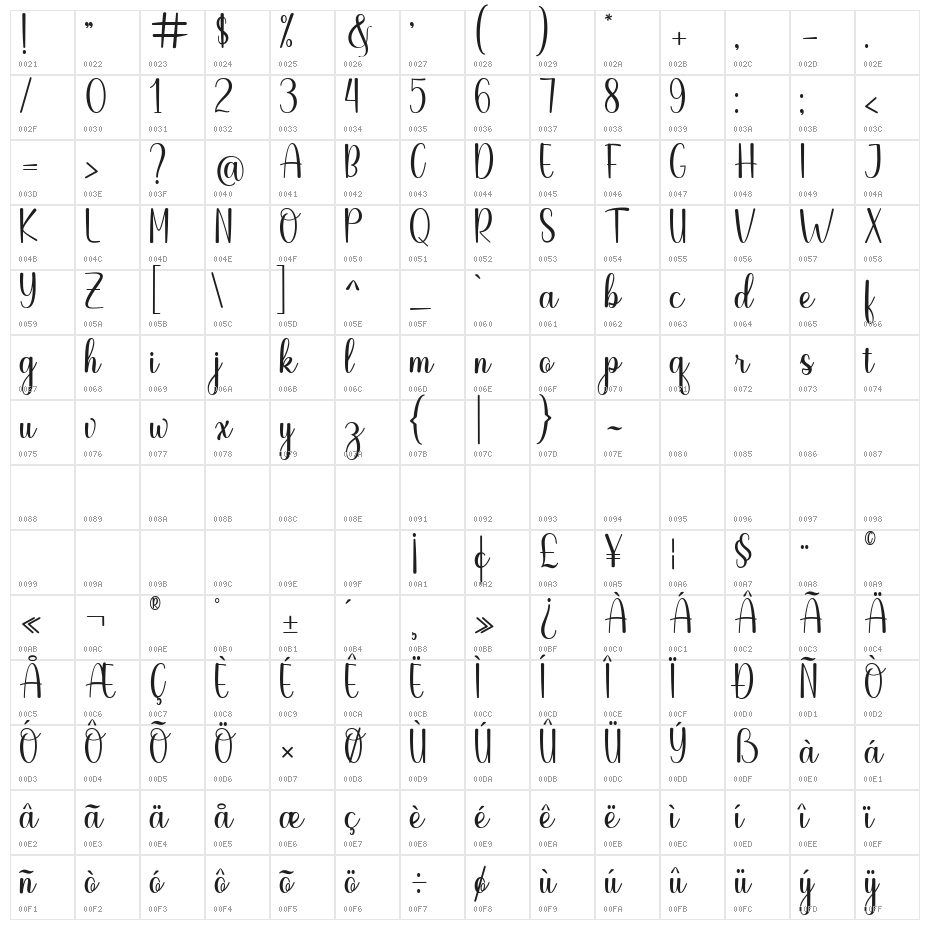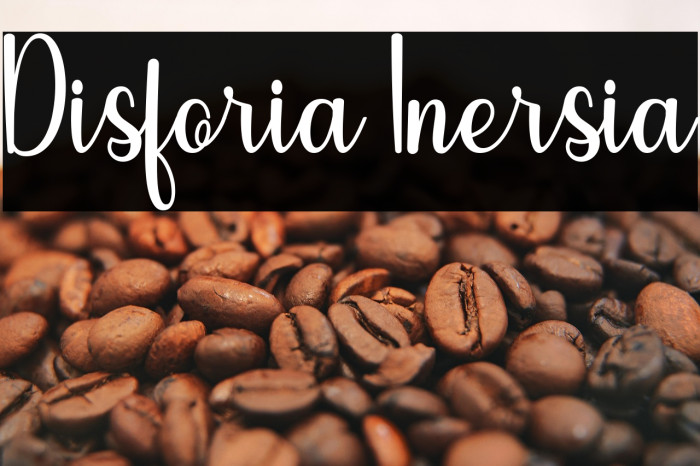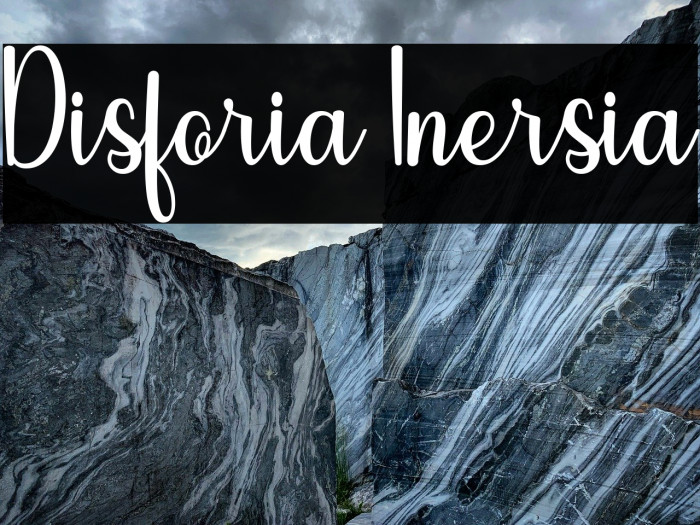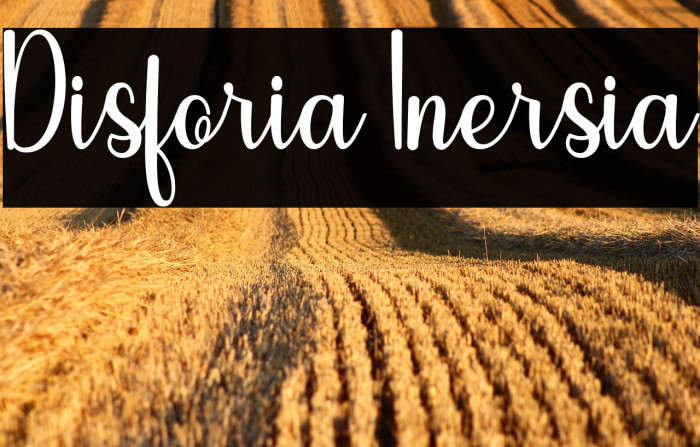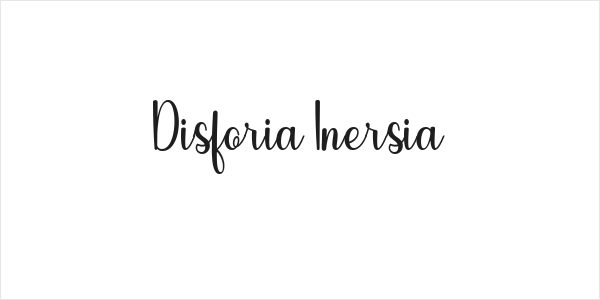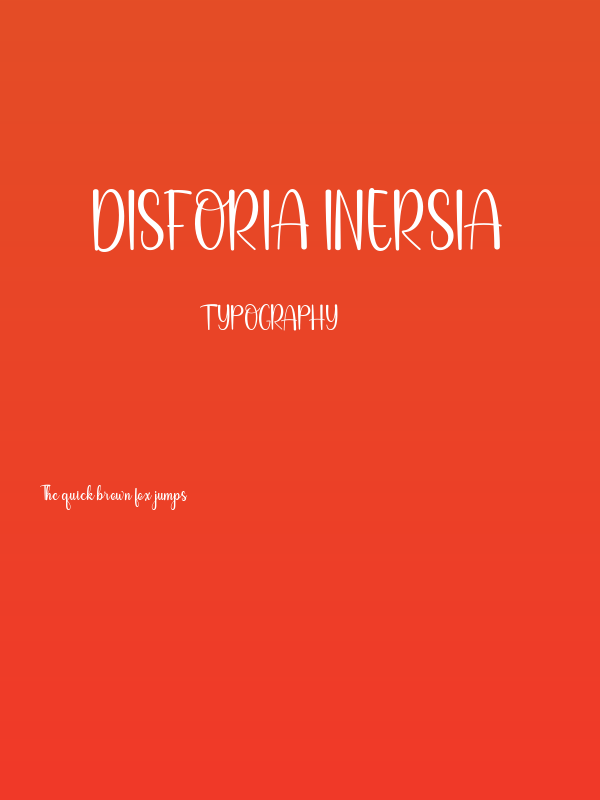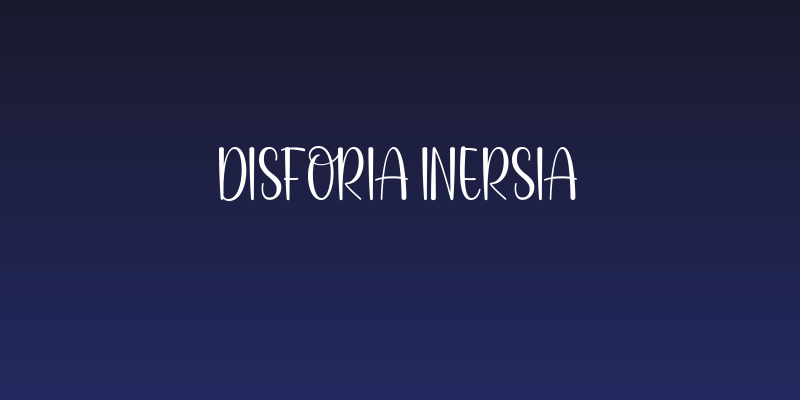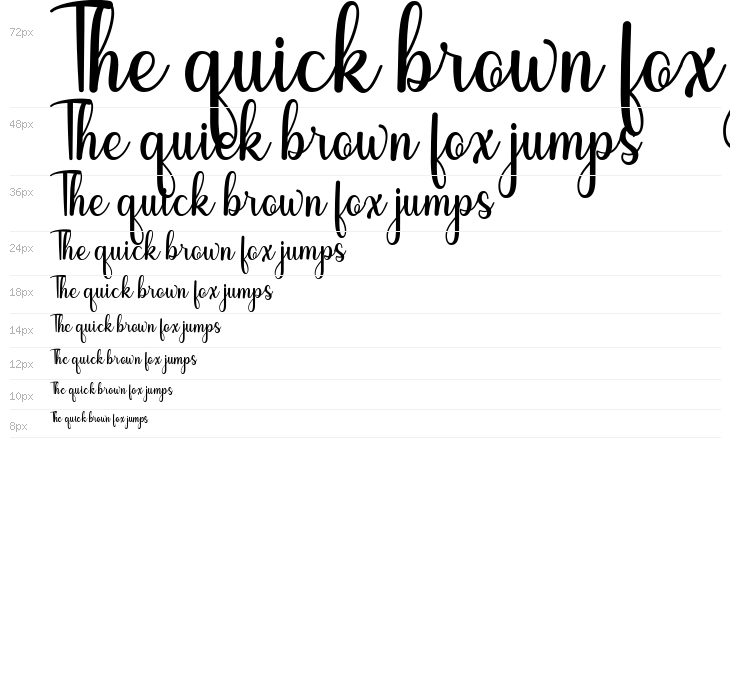
Disforia Inersia Font
Disforia Inersia Description
This font features a unique blend of modern and handwritten styles, offering a playful yet sophisticated look. The uppercase letters are tall and narrow with a slight slant, giving them an elegant and airy feel. In contrast, the lowercase letters are more fluid and cursive, adding a touch of whimsy and creativity. The numerals are consistent with the uppercase style, maintaining a clean and legible appearance. Special characters are thoughtfully designed to complement the overall aesthetic, making this font versatile for various design needs. The combination of these elements creates a harmonious balance between structure and fluidity, making it suitable for both formal and casual applications.
| Use Case | Logos, Invitations, Social Media Graphics |
| Proposed Projects | Ideal for wedding invitations, branding, social media graphics, and creative projects requiring a personal touch. |